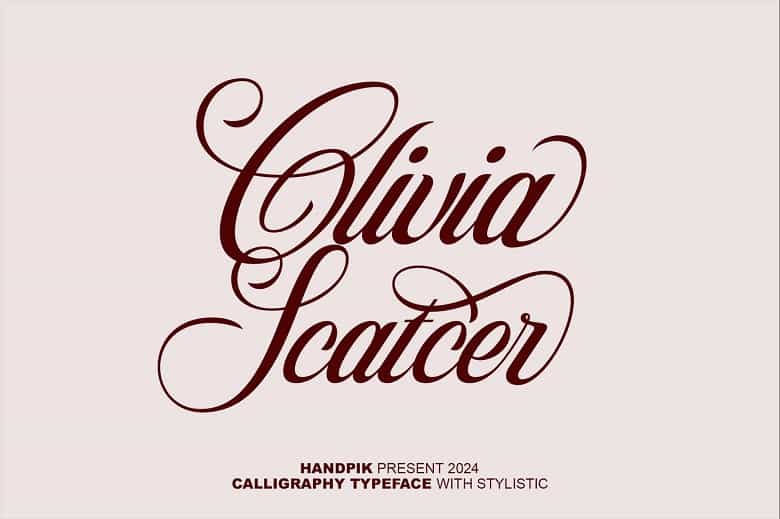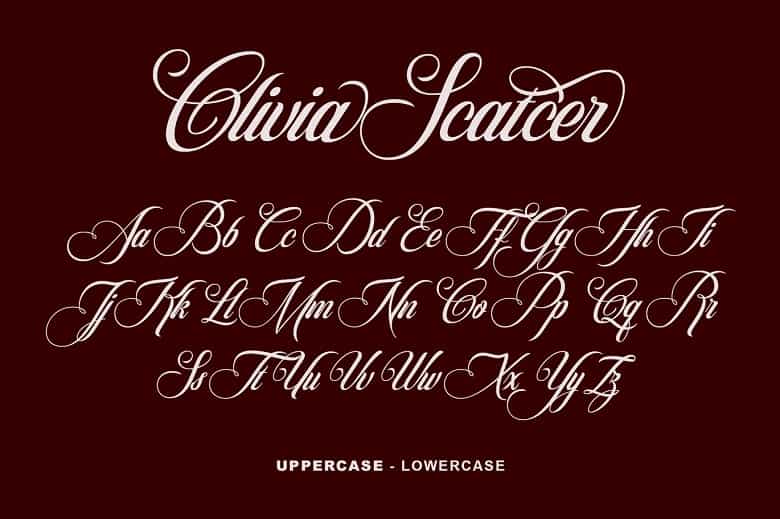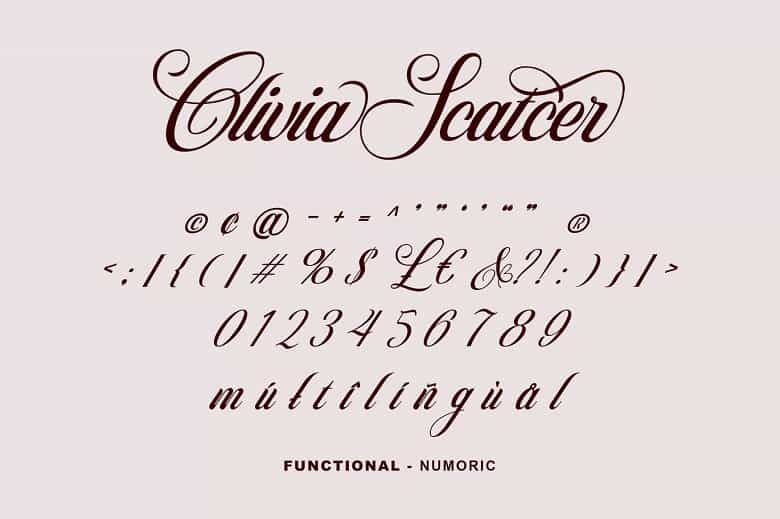
Olivia Scater is an elegant calligraphy script font. Olivia Scater will be perfect for many projects: book, magazines, Logo, branding, photography, quotes, blog header, poster, advertisements, etc.